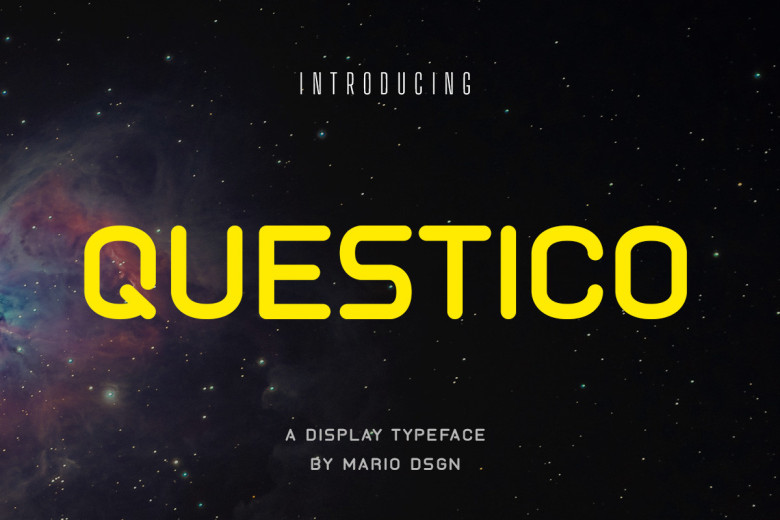
Questico Font
Questico is a cool, modern and techno font. It’s perfect » for all kinds of web design projects be they space-orientated sites, sports special sites, and so on any needlessly choice website where the characters need to stand out strongly! You may be not only adventurous with this style but bring out any facial feature that suits your taste, hence its characteristic look.
Questico Display Font